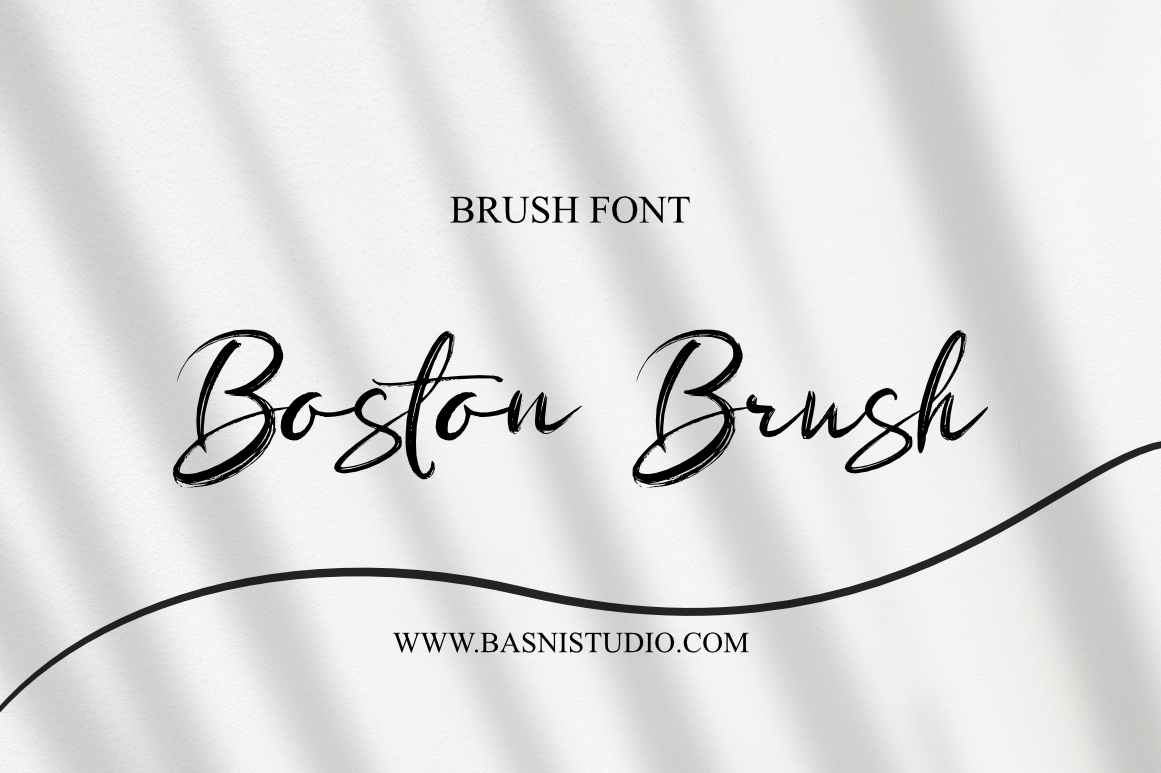
Boston Brush | Brush font
Introducing Boston Brush, a Brush font,
Boston Brush is perfect for branding, websites, design invitation, and editorial designs. Includes all upper and lower case letters, multilingual support & punctuation. everything can be easily accessed using software that supports OpenType.